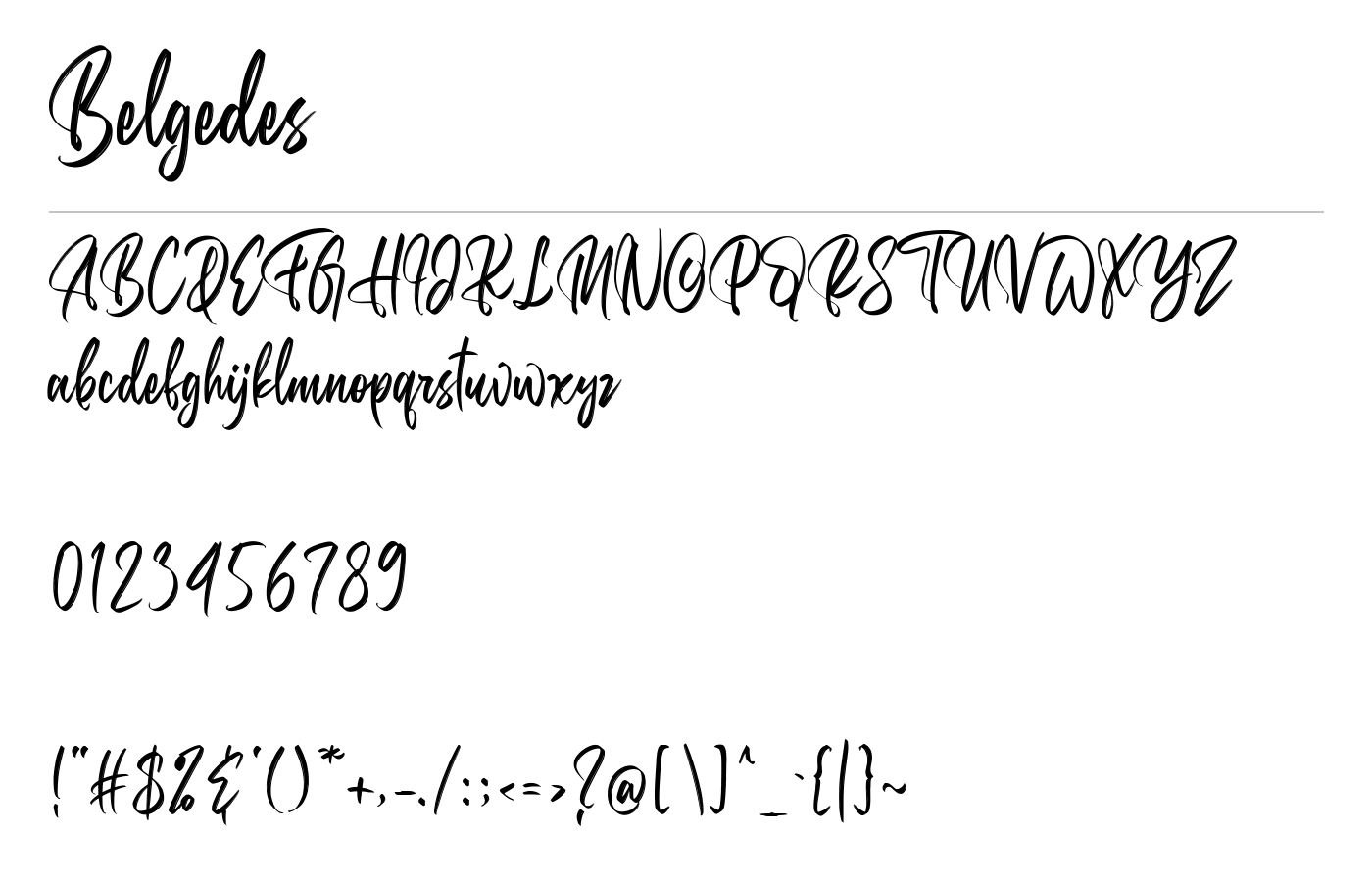
Belgedes is a stylish script font with a smooth, flowing handwritten feel, featuring elegant swashes and varied stroke widths that add a lively, dynamic character. It balances bold, expressive uppercase letters with more delicate, flowing lowercase forms, making it perfect for branding, invitations, and creative headlines where a personal, artistic touch is desired. This font conveys warmth and sophistication, ideal for fashion, beauty, and lifestyle projects looking to evoke charm and creativity.
Belgedes Font
About Belgedes Font